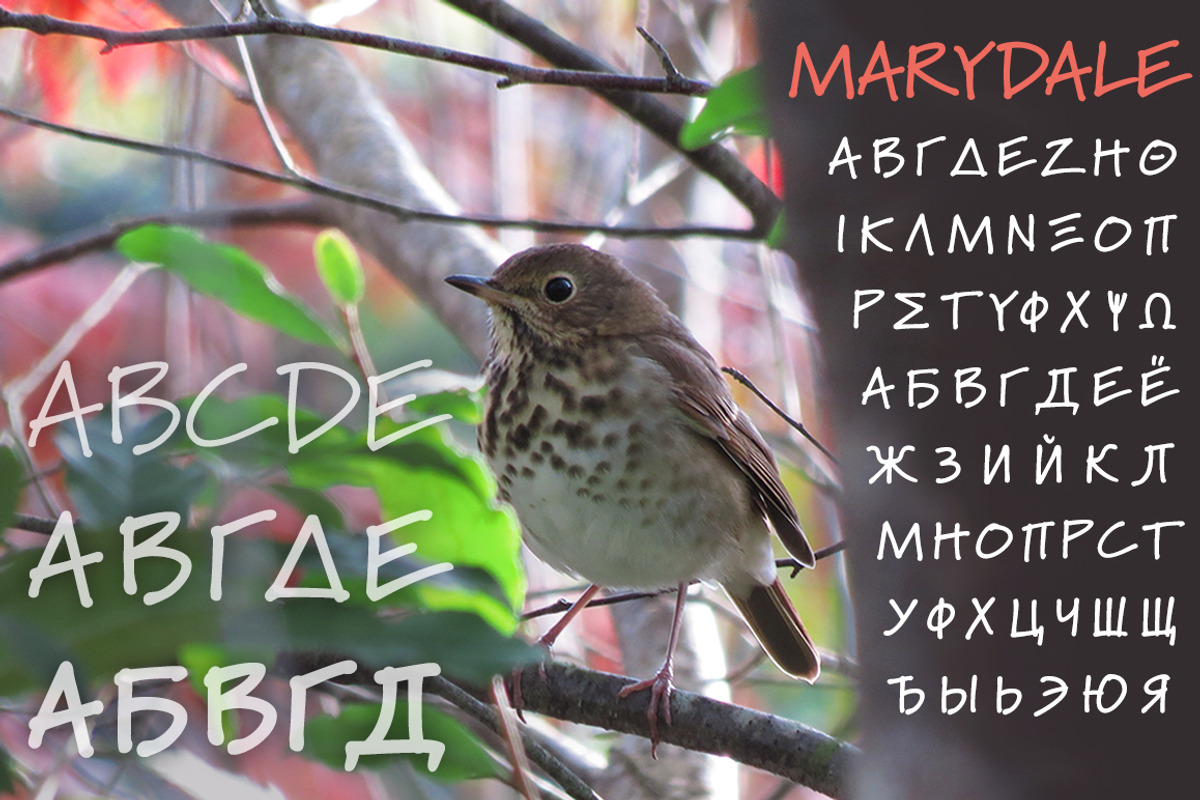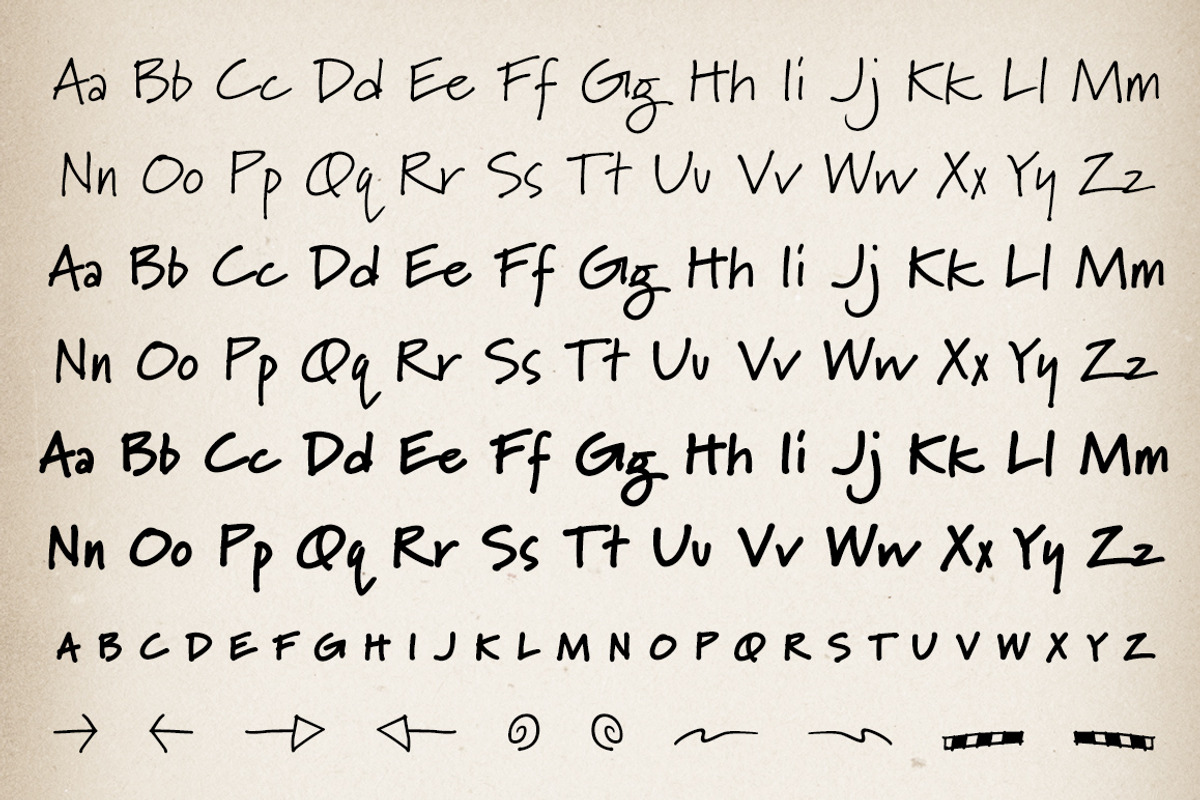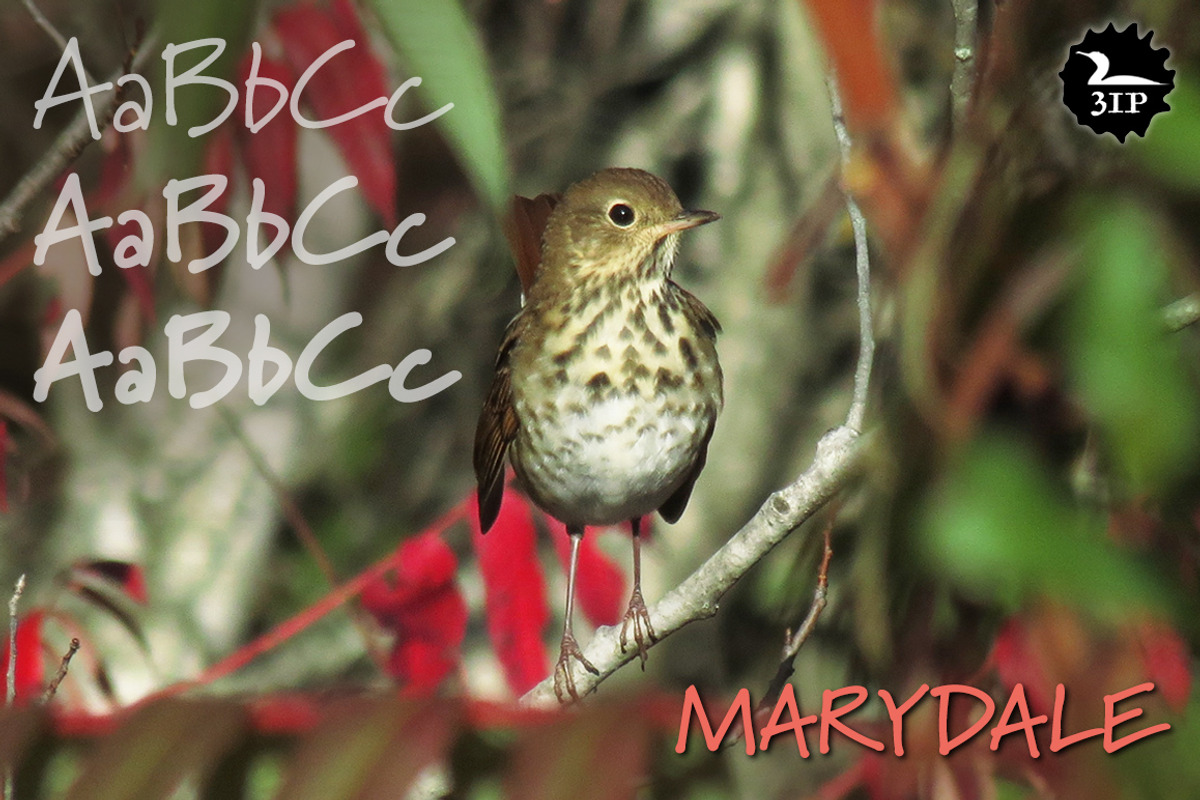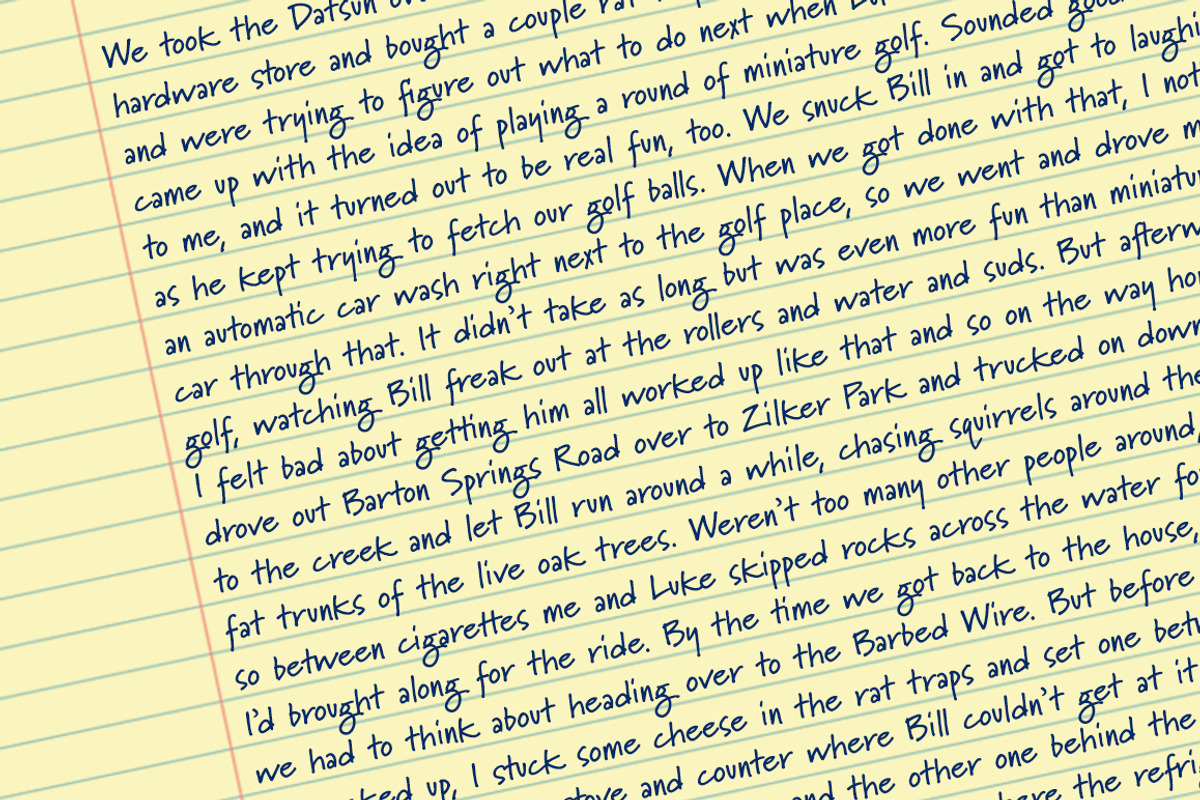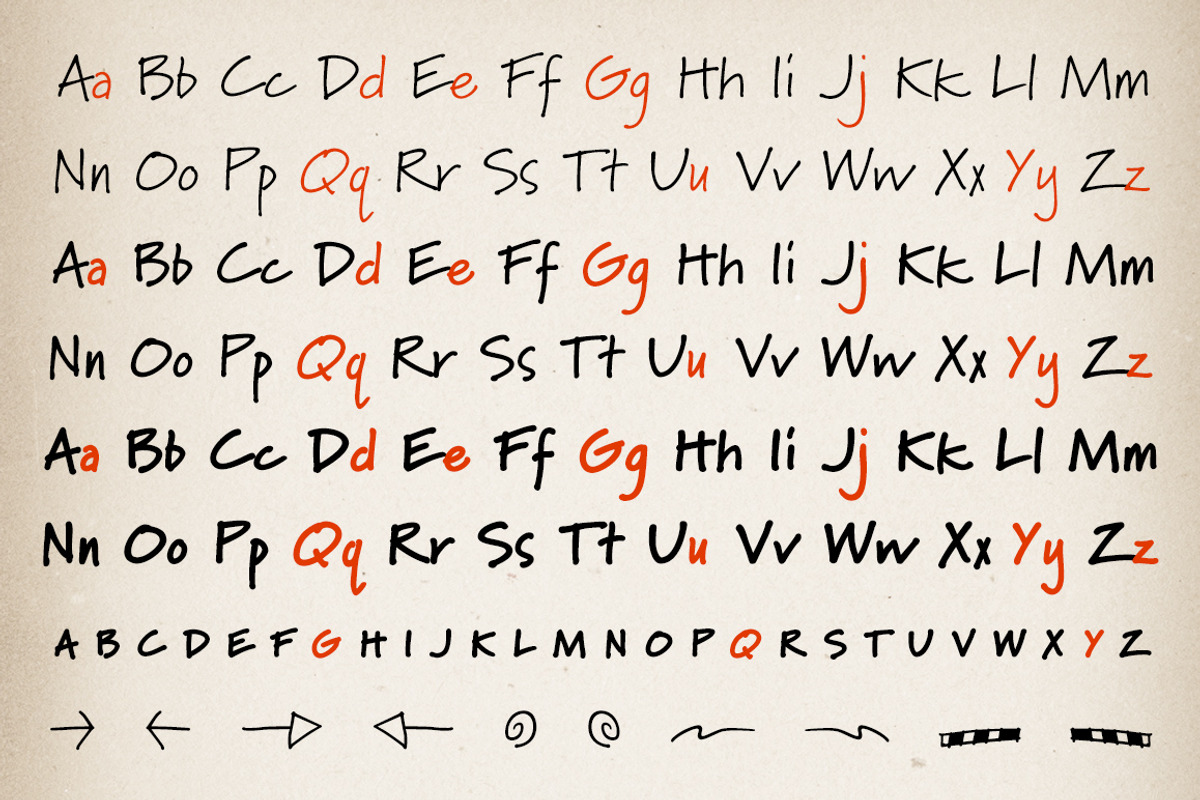
Marydale, a font with personality
Marydale, a font with personality by Three Islands Press is a font selected for branding, posters, packaging, typography.
- Marydale comes with more than 1,000 glyphs in all.
- It also has numerous OpenType features, including small caps, dozens of ligatures, and a stylistic set that substitutes a few less quirky le
- Marydale Regular
- Marydale Bold
- Marydale Black
Why Marydale, a font with personality is worth a look
Marydale, a font with personality by Three Islands Press fits naturally into Branding, posters, packaging, typography.